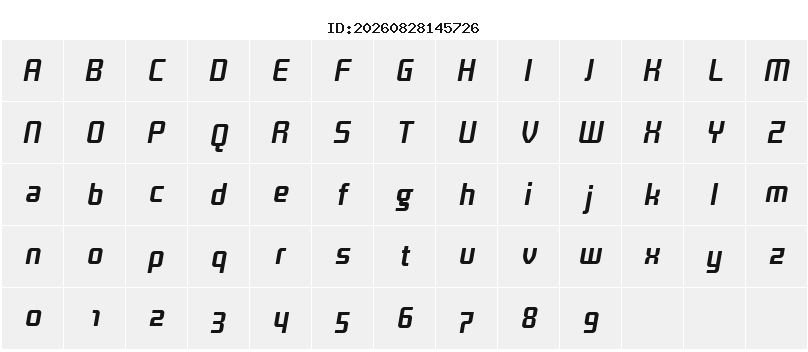
Titan Preview
• Font Name: Titan
• Full Font Name: Titan Bold Italic
• PostScript Name: Titan-BoldItalic
• Manufacturer: Dino dos Santos _ DSType
About Titan.ttf
Titan.ttf is a modern, elegant sans-serif font designed for ultimate readability and visual harmony. Perfect for branding, headlines, web design, and print materials.